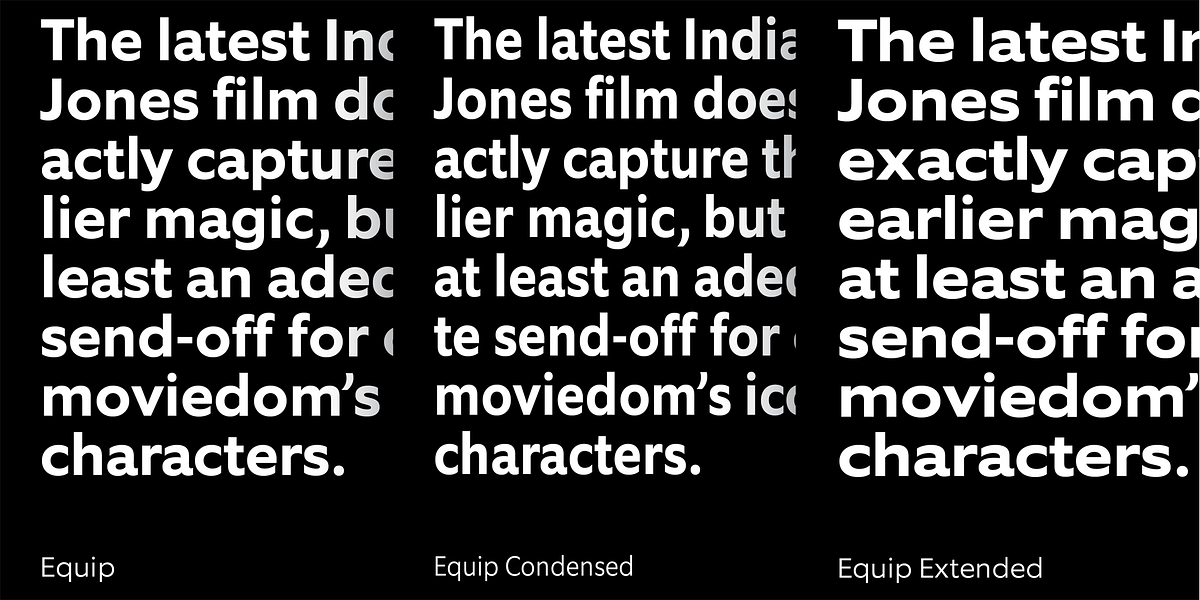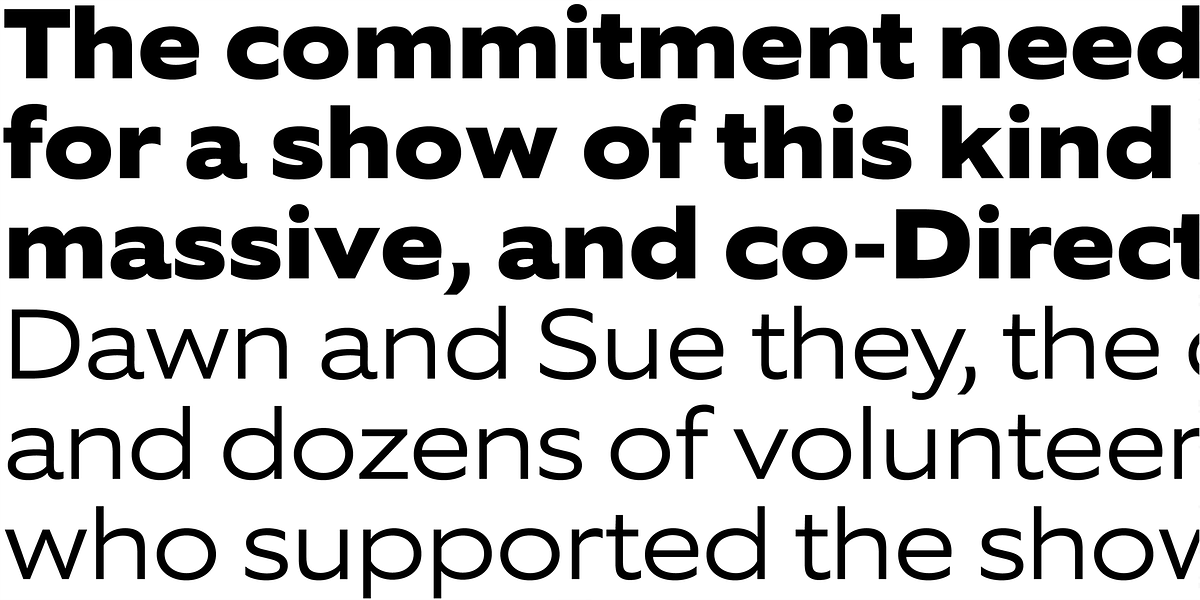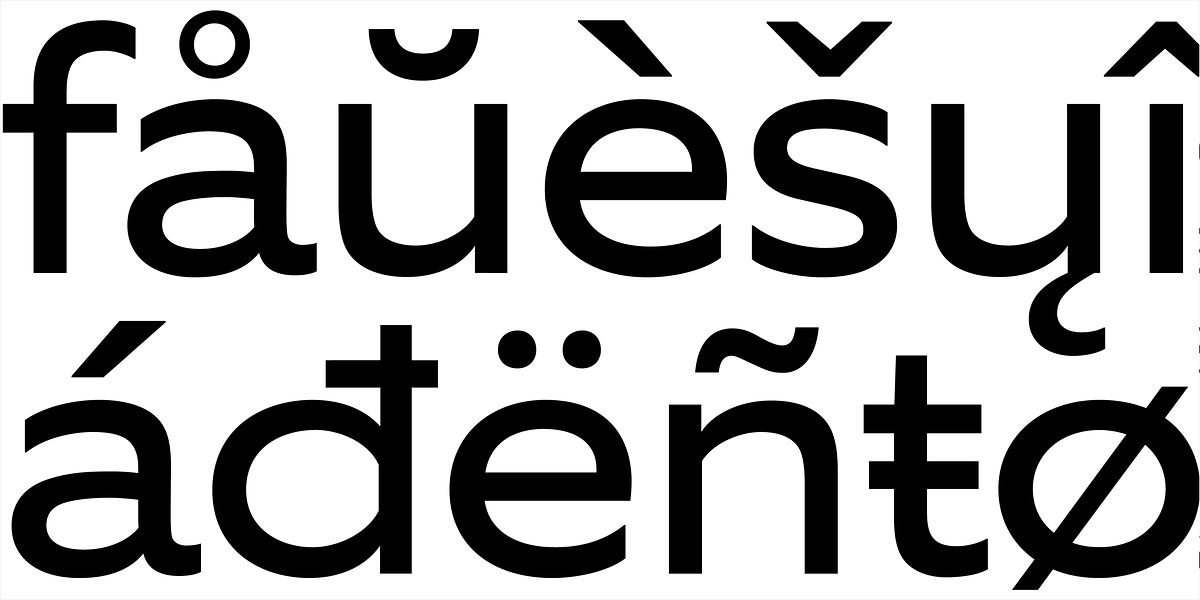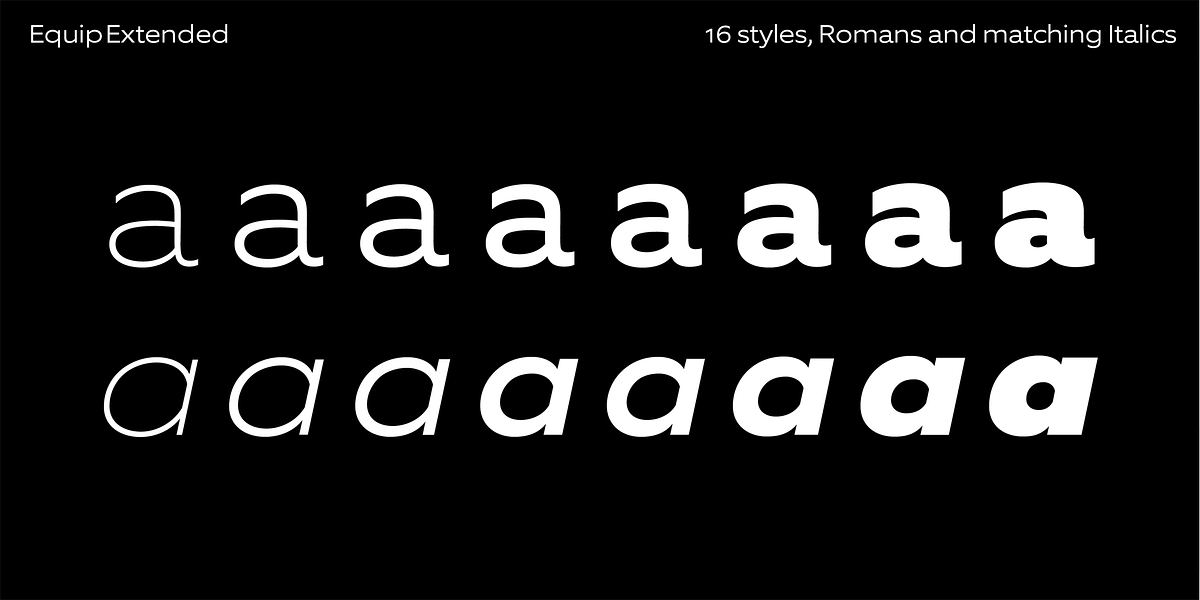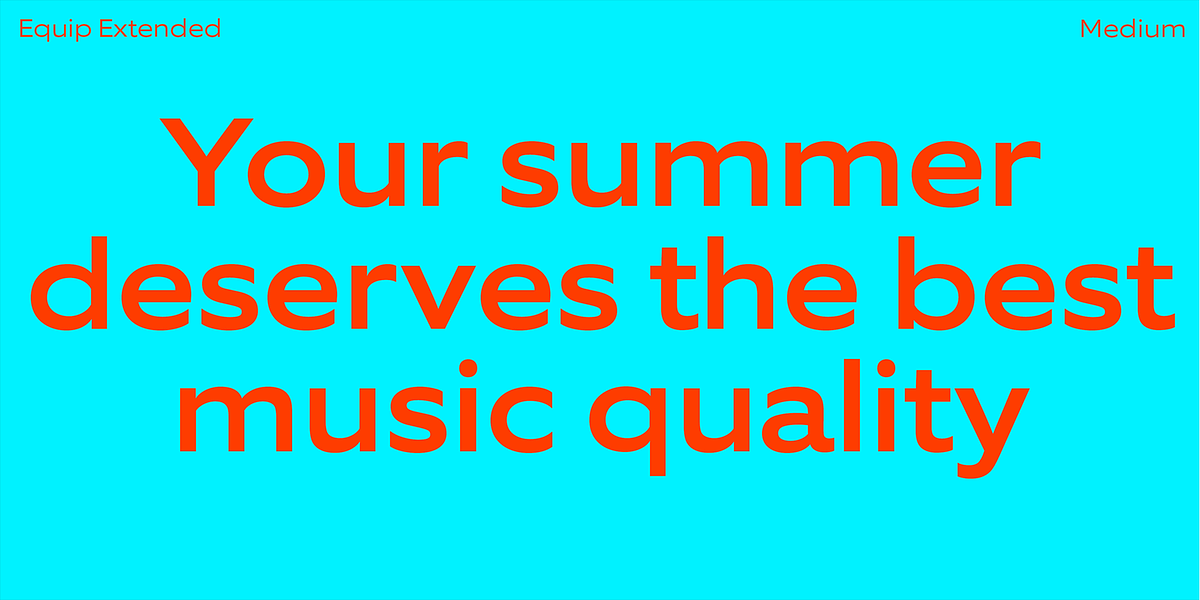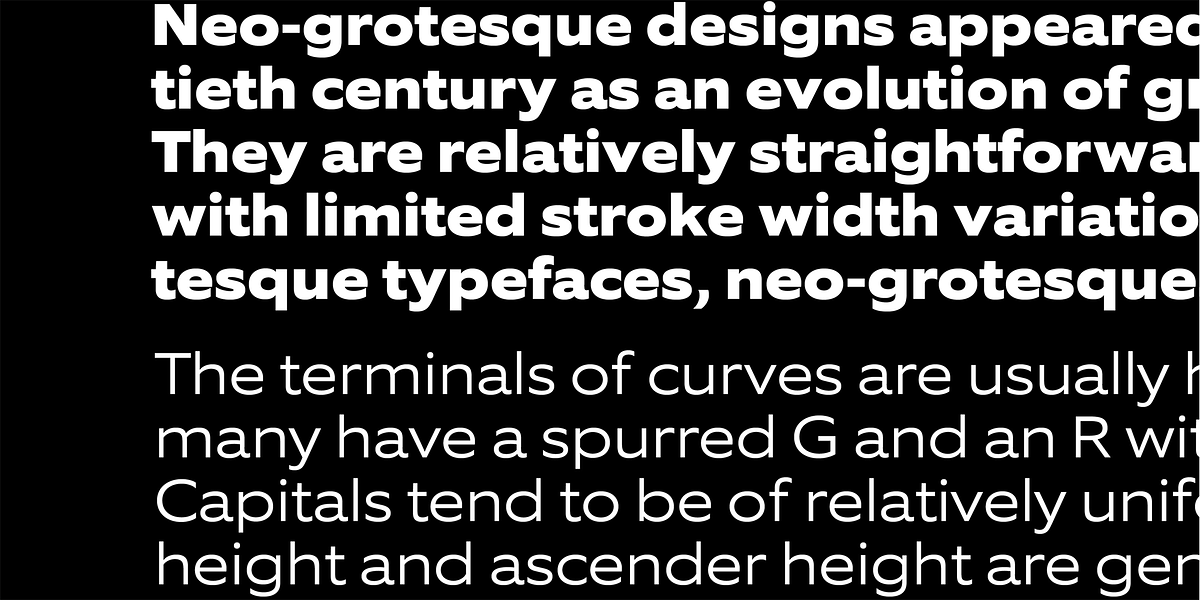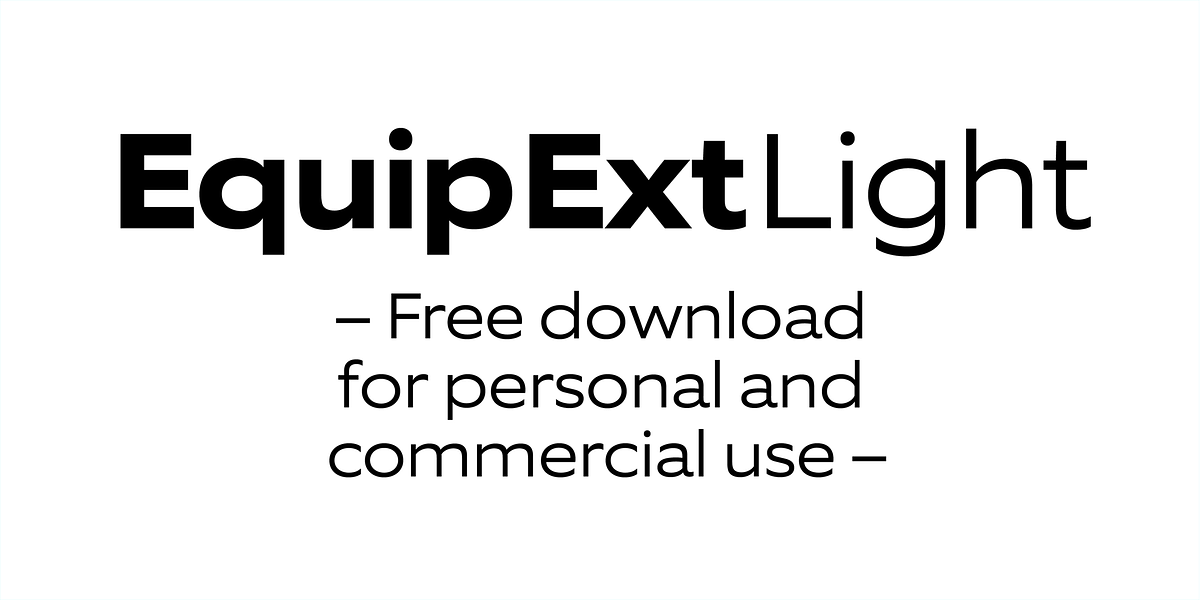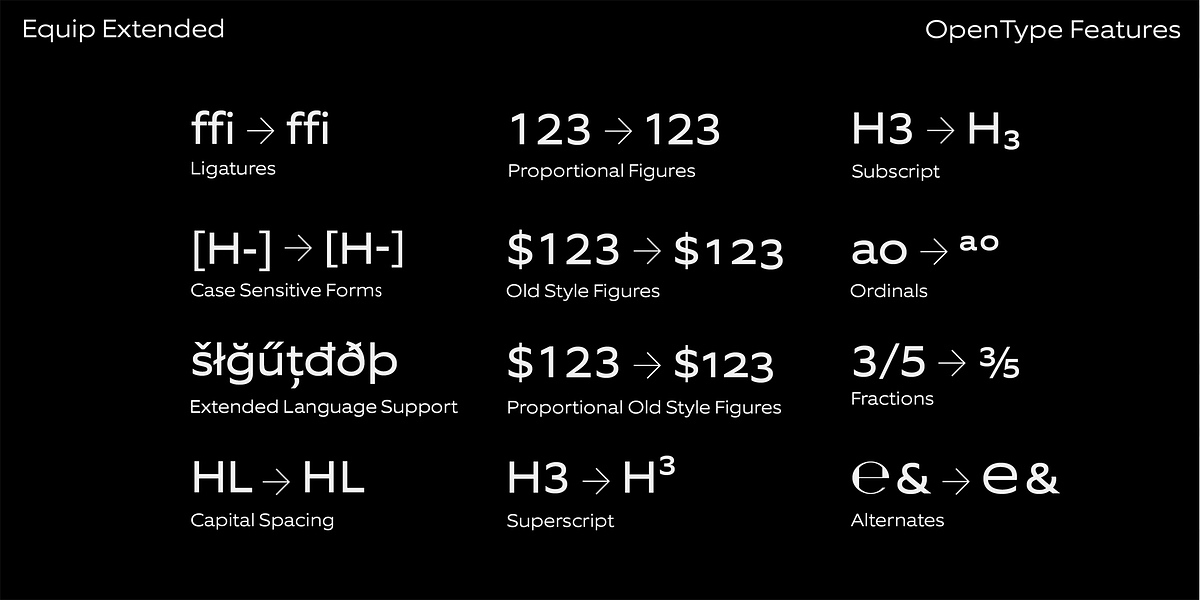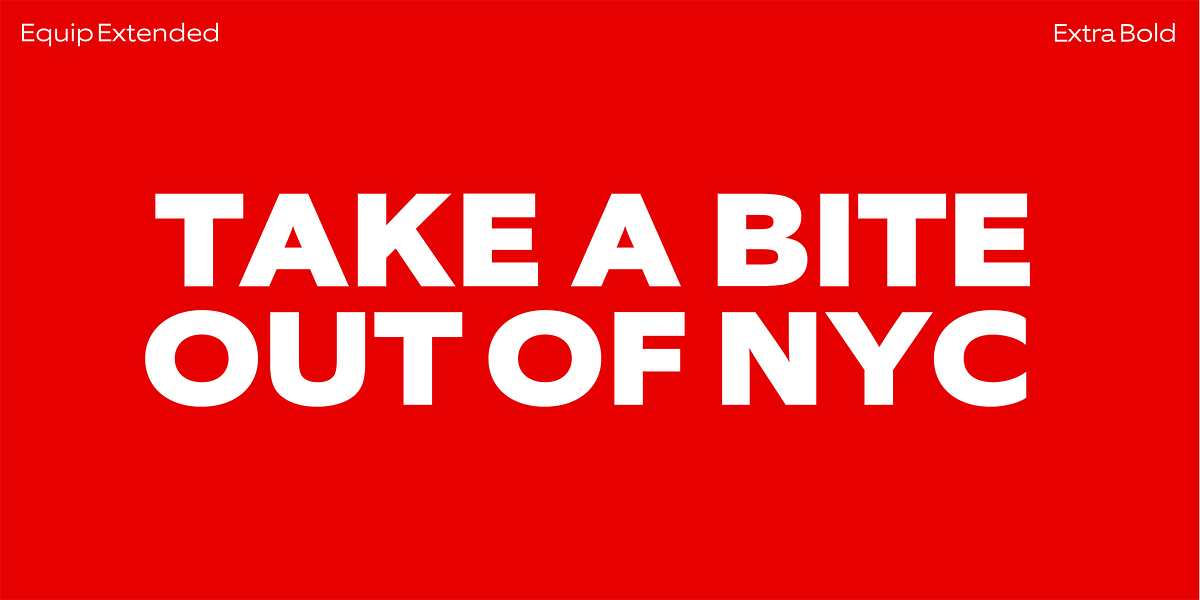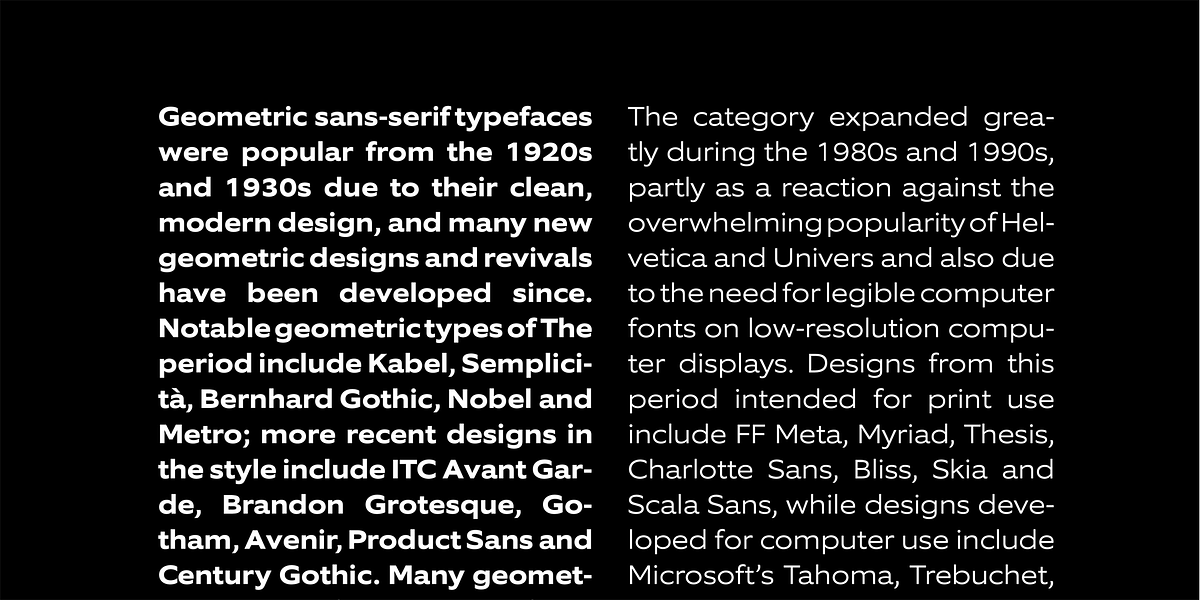
EquipExtended
EquipExtended is a geometric sans serif font family designed for versatility. Its wide and open proportions give it a friendly and warm appearance, suitable for various typographic applications including headlines, subheads, and even body text. The font features extended language support and includes a range of OpenType features such as semi-ligatures, different figure styles, currency symbols, and arrows.